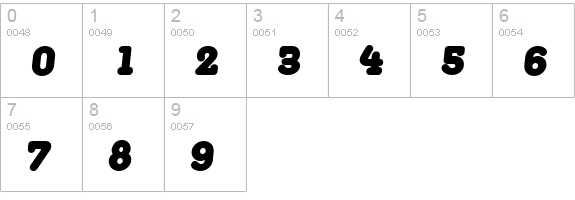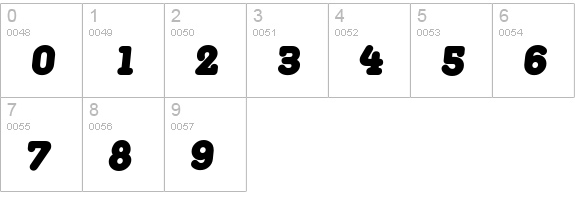
MexicoSerial-Heavy-Italic is a heavy, high-impact, italic variant in the MexicoSerial typeface family \xE2\x80\x94 well suited to high-impact headlines, posters, and display advertising.
Introducing MexicoSerial-Heavy-Italic font, a bold and impactful typeface that exudes a strong presence on any design project. This eye-catching font features heavy, italicized characters that make a statement and command attention. Perfect for headlines, banners, and logos, MexicoSerial-Heavy-Italic font adds a touch of sophistication and modernity to your creative projects. What's even better is that MexicoSerial-Heavy-Italic font is available for free download at FontsMarket.com. This means you can easily access and use this unique font in your designs without any cost. Don't miss out on the opportunity to enhance your visuals with the striking MexicoSerial-Heavy-Italic font, now conveniently at your fingertips for free at FontsMarket.com.